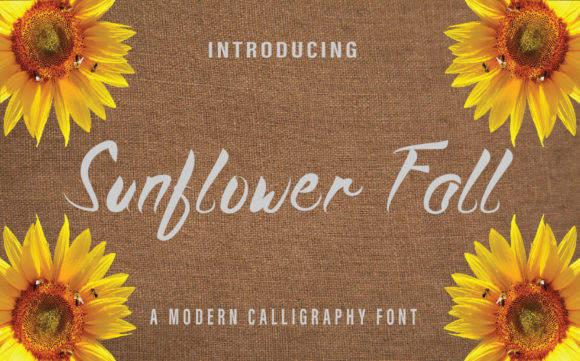
Embark on an enchanting journey with Sunflower Fall, a captivating script font that exudes timeless elegance. This masterfully crafted font pays tribute to the art of calligraphy, beckoning you to create captivating designs that resonate with warmth and sophistication.
Immerse yourself in the beauty of Sunflower Fall's varying baseline, where each letter dances harmoniously to form a visually stunning composition. Smooth lines intertwine seamlessly, embracing your words with a grace that captivates the senses. Discover the magic of gorgeous glyphs and stunning alternates, inviting you to explore infinite creative possibilities.
Picture your designs taking flight as you craft exquisite wedding invitations, each one a testament to the enduring power of love. Imagine stationary art that tells a tale of elegance and refinement, leaving a lasting impression on your recipients. Create social media posts that command attention, captivating your audience with their charm and allure. Embrace the joy of designing cute greeting cards, spreading warmth and cheer with every stroke of your digital pen.
Sunflower Fall is more than just a font; it's a gateway to boundless creativity, an open invitation to let your imagination soar. It's the perfect choice for designers seeking a touch of enchantment, a sprinkle of whimsy, and a dash of timeless allure. Fall in love with Sunflower Fall today and watch your designs transform into breathtaking works of art.